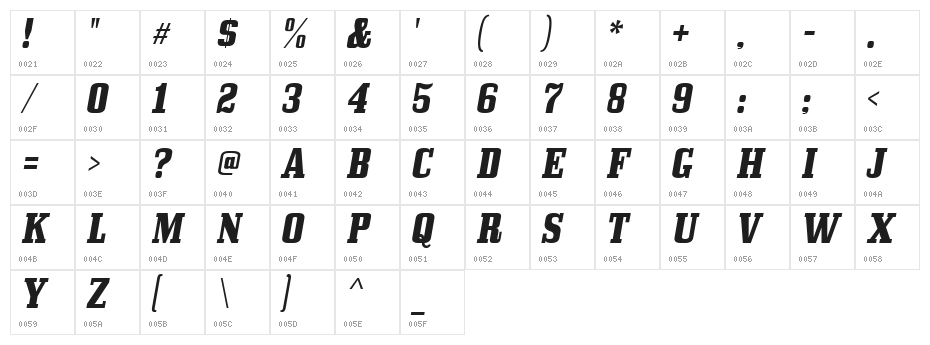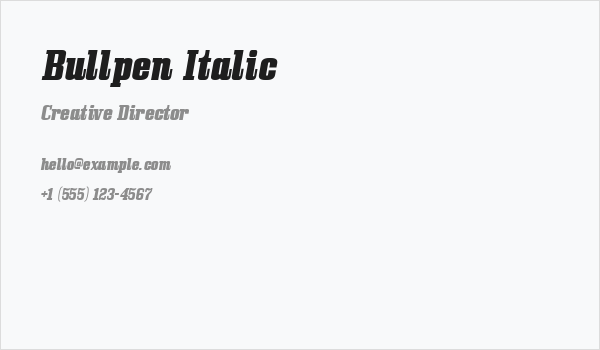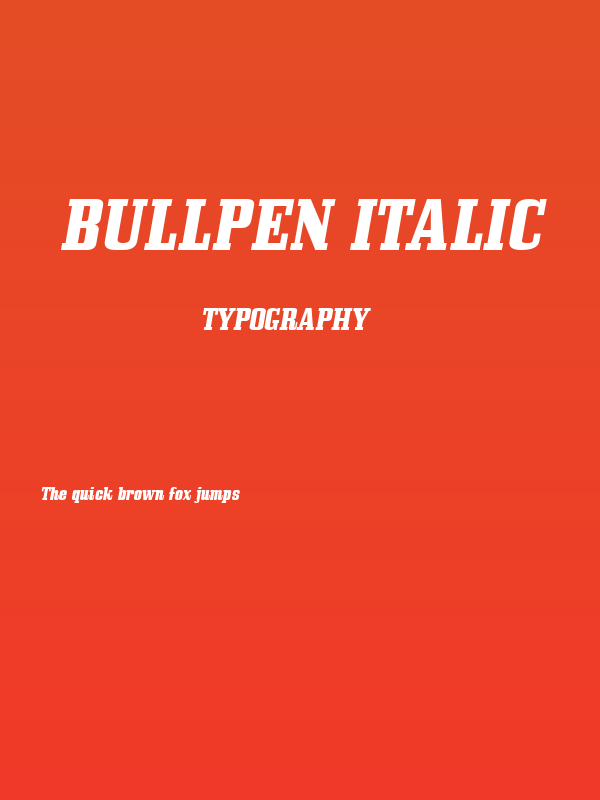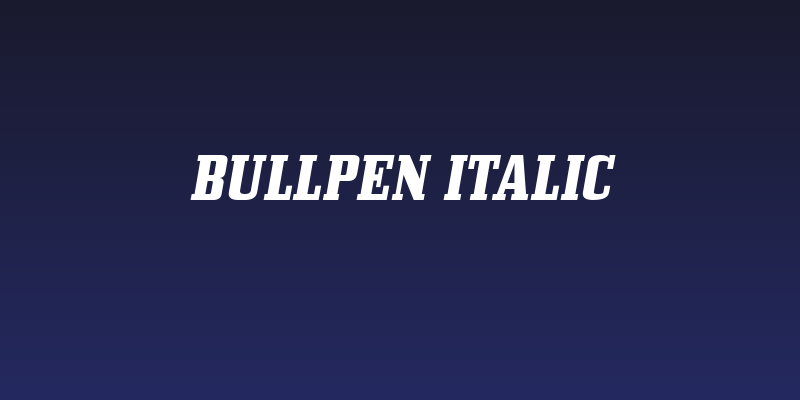
Bullpen Italic Font
Bullpen Italic Description
This font features a bold and dynamic italic style, characterized by its strong and confident letterforms. The uppercase letters are robust and slightly condensed, giving a sense of urgency and movement. The lowercase letters maintain a consistent slant, enhancing the italicized effect. Numerals are bold and clear, ensuring readability. Special characters are designed with the same boldness, making them stand out effectively. The overall design is cohesive, with a slight vintage flair that adds character and charm.
| Proposed Projects | Ideal for sports branding, dynamic posters, vintage-themed designs, and bold headlines. |